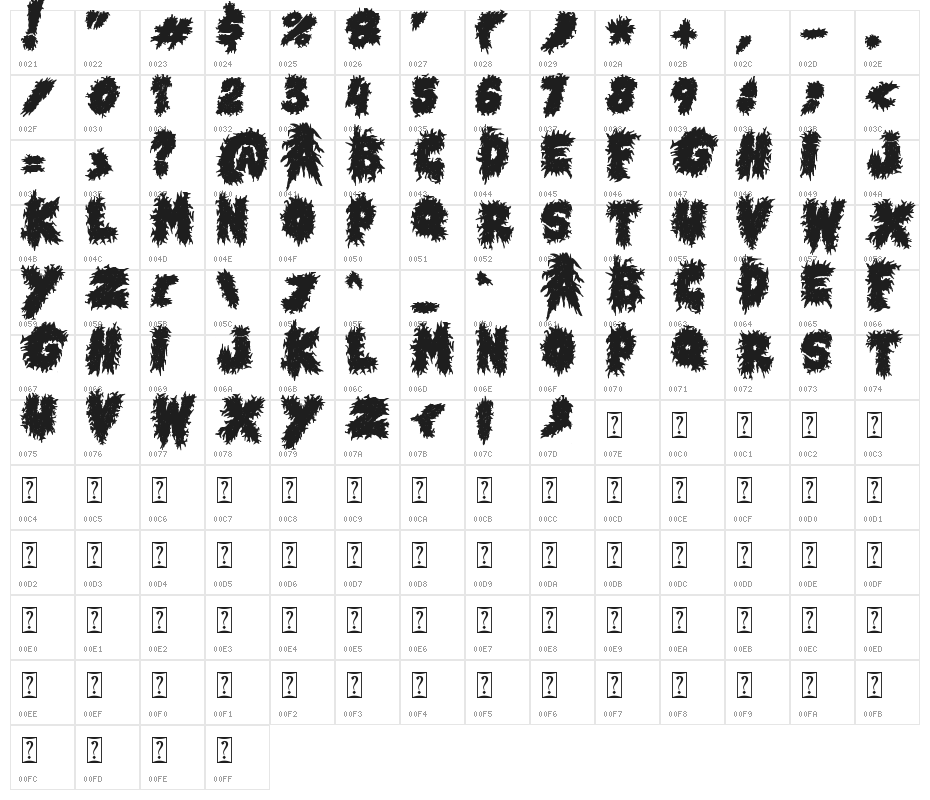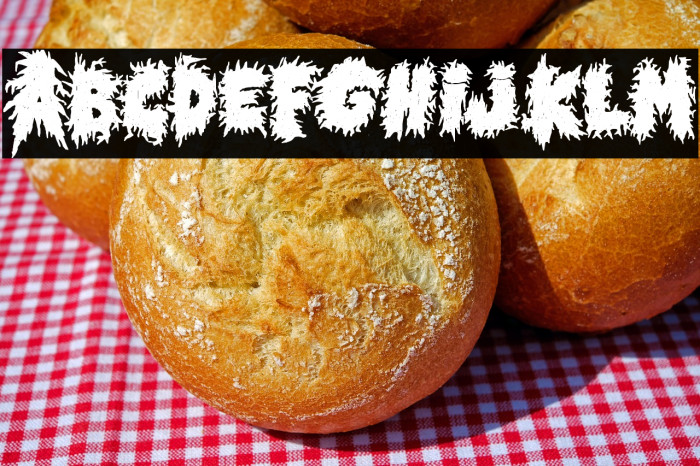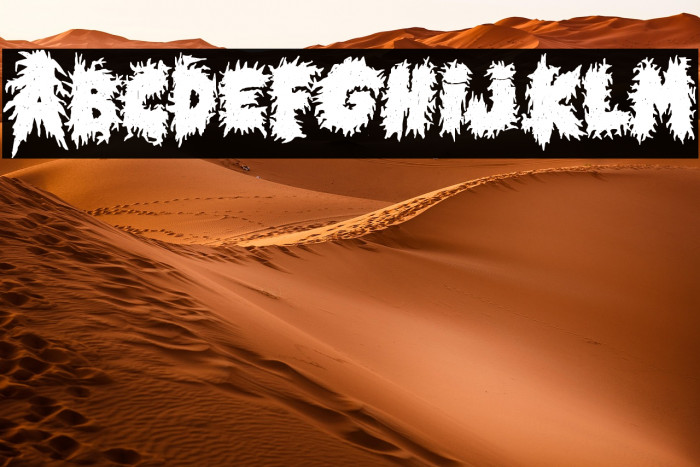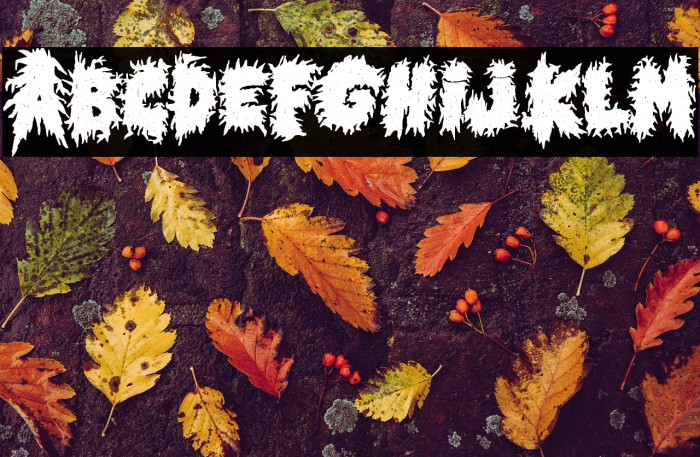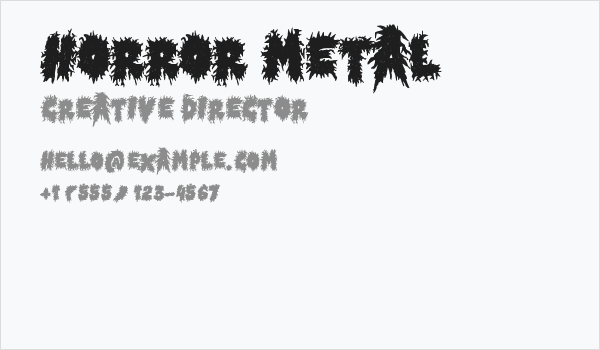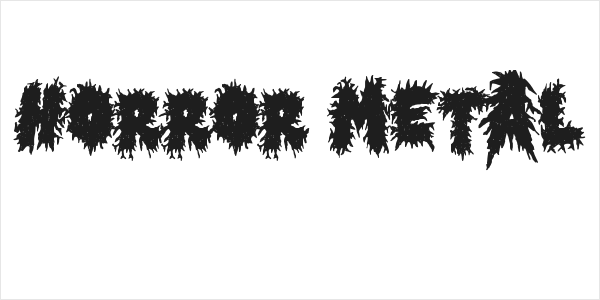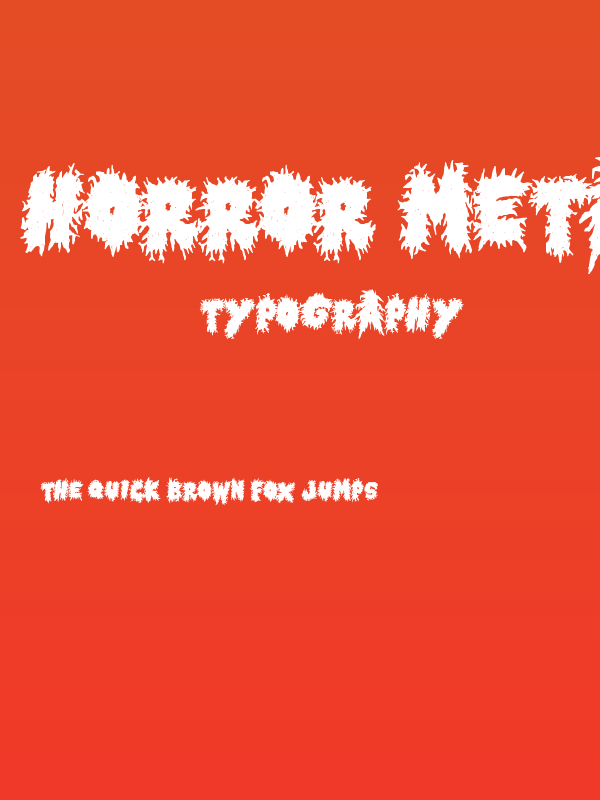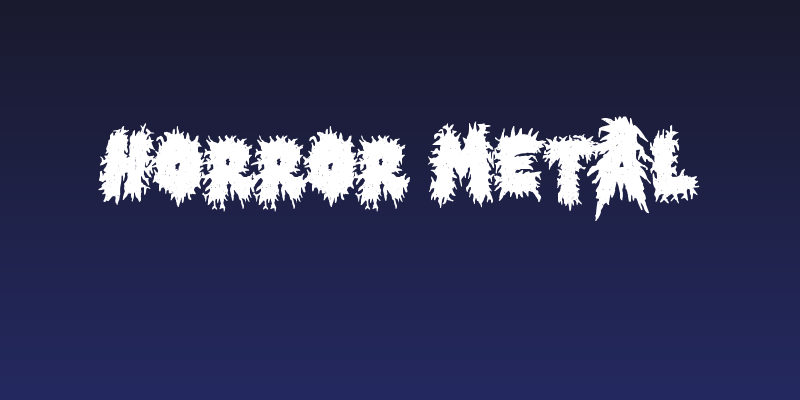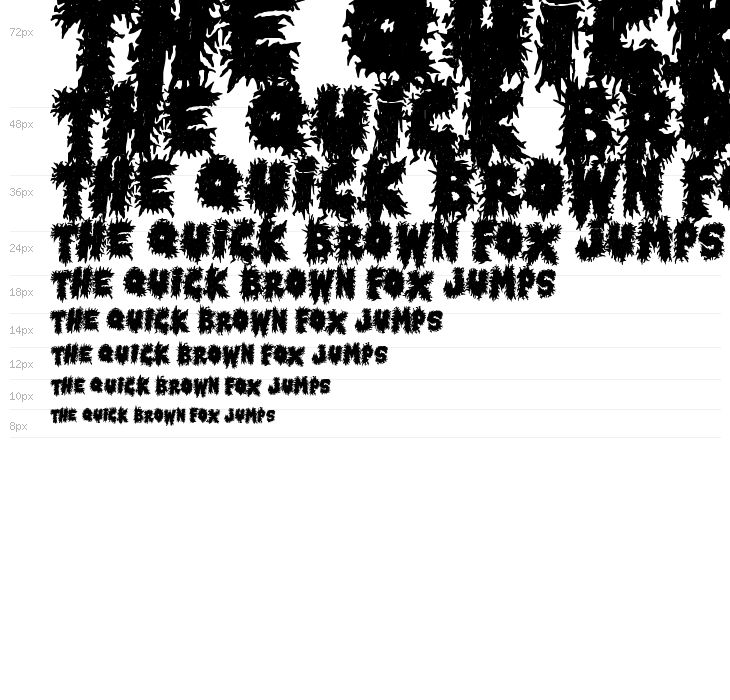
Horror Metal Font
Horror Metal Description
This font features a bold and aggressive design, characterized by jagged, thorn-like edges that give it a chaotic and intense appearance. The letters are densely packed with sharp, irregular outlines that evoke a sense of horror and metal music aesthetics. The uppercase and lowercase letters maintain a consistent style, with each character appearing as if it's been torn from a dark, eerie landscape. The numbers and special characters follow the same theme, ensuring a cohesive look across all text elements. This font is perfect for projects that require a dramatic and edgy visual impact.
| Use Case | Logos, Posters, Headlines |
| Proposed Projects | Ideal for horror movie posters, metal band logos, Halloween event flyers, and edgy graphic designs. |